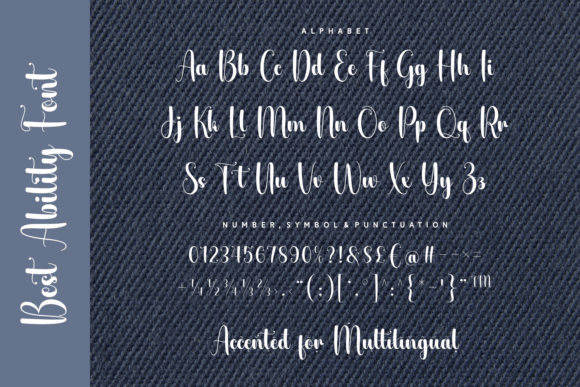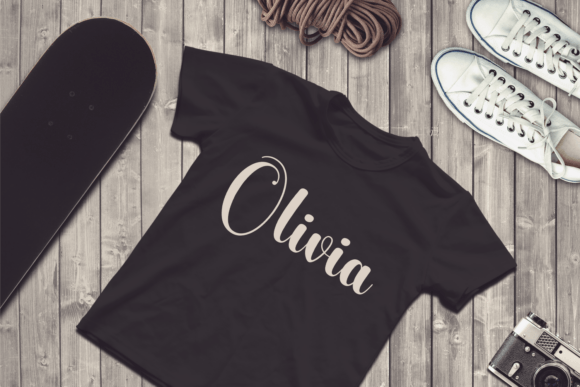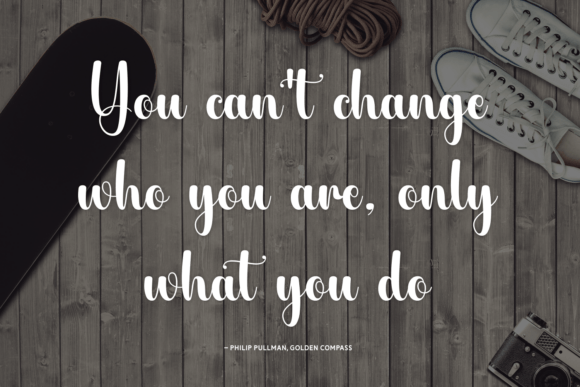
Unlock the Magic of Best Ability Font
There’s nothing quite like the thrill of starting a new design project, blank canvas and all. The possibilities are endless, and your imagination runs wild as you envision the perfect font to bring your creation to life. But what if you had a secret weapon, a font that would elevate your designs and leave a lasting impression on your audience?
Meet the Best Ability Font, a stunning modern script font designed to make your projects stand out from the crowd. With its bold strokes and intricate swashes, this elegant and decorative font is perfect for high-end stationery, logos, branding, and wedding invitations. Whether you’re a seasoned designer or just starting out, the Best Ability Font is a valuable addition to your toolkit, offering a sophisticated and charming touch to your digital and print designs.
Key Features of “Best Ability Font”
- Font Family: Offers 12 different font families, each with its unique style and characteristics.
Best Ability Font Review
I recently had the chance to work with the Best Ability Font, and here’s my honest review.
- Unique Typography: The font has a distinctive look that sets it apart from more generic fonts. It’s perfect for projects that need a touch of personality.
- High Customization Options: The font offers a wide range of customization options, making it easy to adjust the style to fit your specific needs.
- Excellent Legibility: Even at smaller font sizes, the text remains clear and easy to read.
- Limited Support for Non-Latin Scripts: The font doesn’t support non-Latin scripts as well as I would have liked, which made it difficult to use for certain projects.
Overall, I’m impressed with the Best Ability Font’s unique style and high customization options. However, the compatibility issues and limited support for non-Latin scripts are significant drawbacks. If you’re looking for a font with a lot of personality and are willing to work around some limitations, the Best Ability Font might be a good choice. But if you need a font that’s compatible with a wide range of systems and supports multiple scripts, you might want to consider other options.
For optimal results, use Best Ability Font for headings and titles, and pair it with a clean sans-serif font for body text.
Best Ability Font works well for creating custom typography in logo designs, posters, and other visual elements.
For presentations, use Best Ability Font to create visually appealing headings and titles.
Best Ability Font is ideal for:
- Creating bold and eye-catching headings.
- Designing logos and brand identities.
- Adding a touch of elegance to presentations and documents.